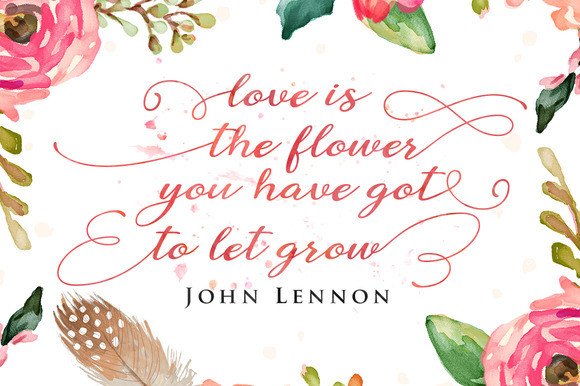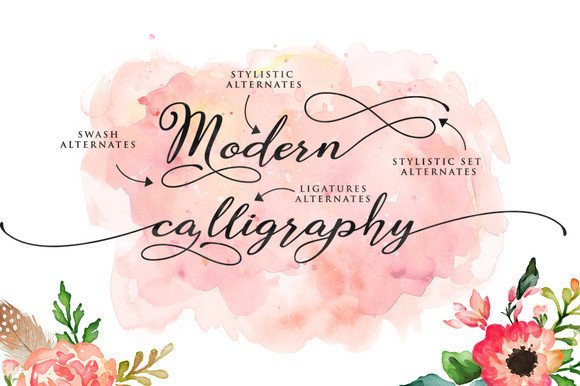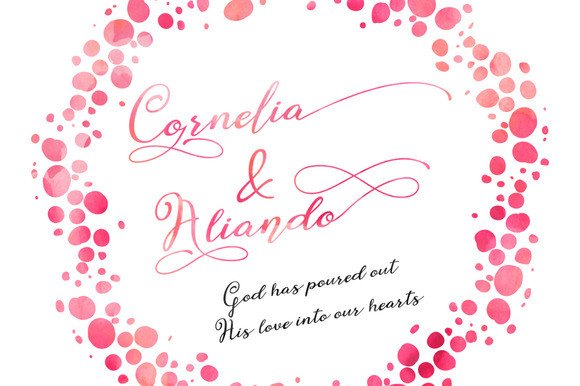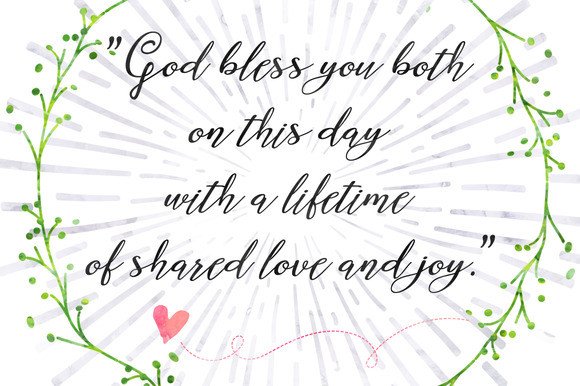
Introduction to Miracella Font
Miracella script is a new handwritten calligraphy font.
It will give your projects a classic and elegant touch It can be used for various purposes such as headings, logos, invitations, t-shirt designs, greeting cards, posters, labels, book covers, brochures and much more.
Key Features of Miracella Font
Why Choose Miracella Font?
Miracella Font offers exceptional quality and versatility, making it a valuable addition to your design toolkit. Whether you’re creating for personal projects or commercial use, Miracella Font delivers professional results.